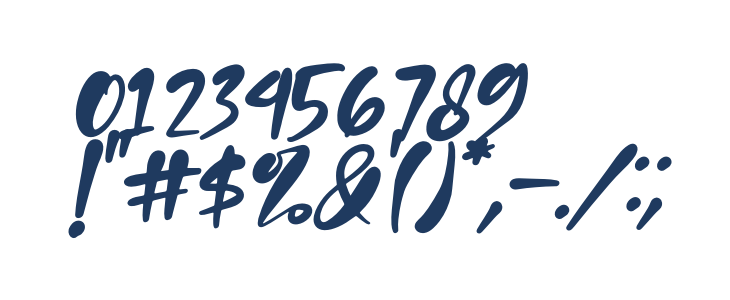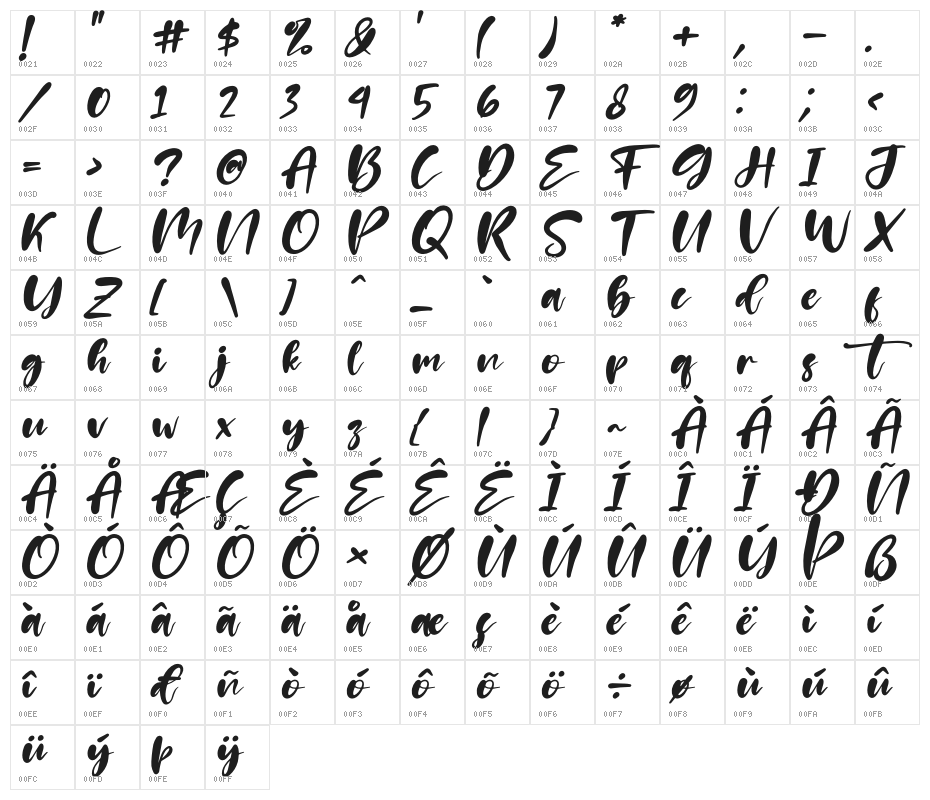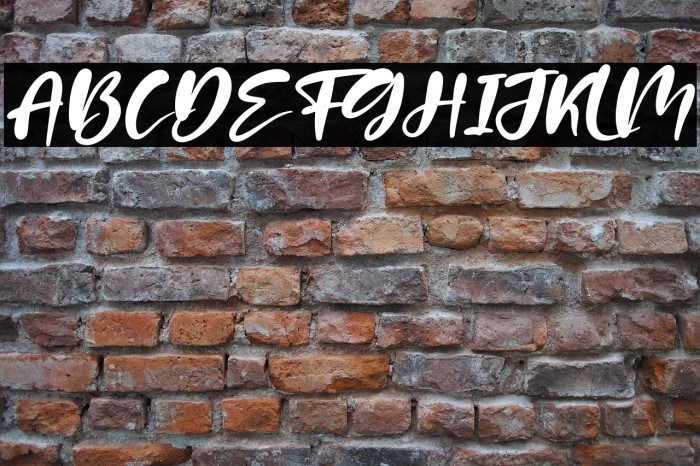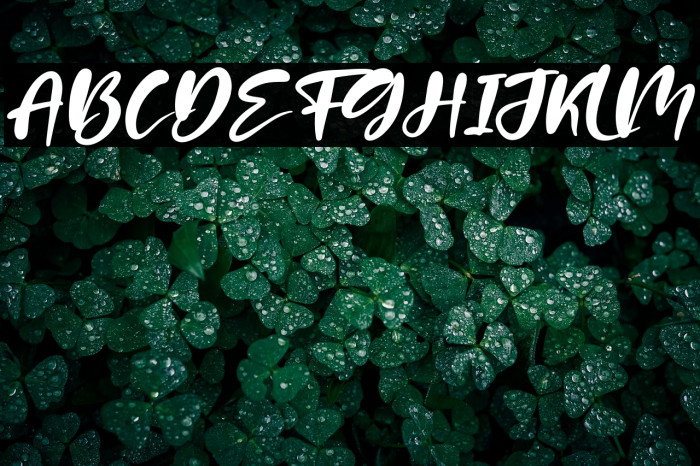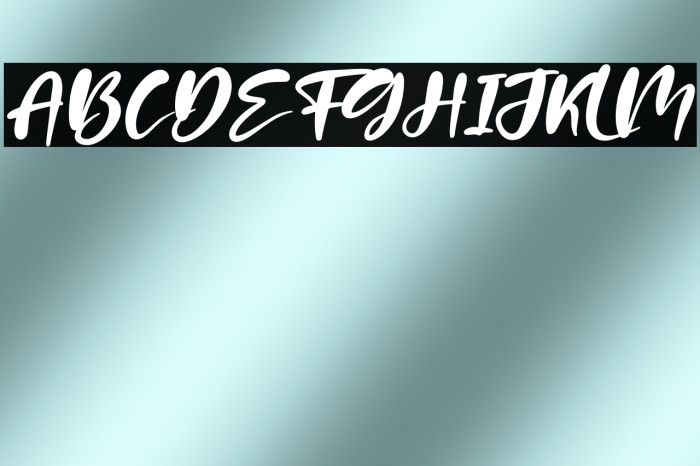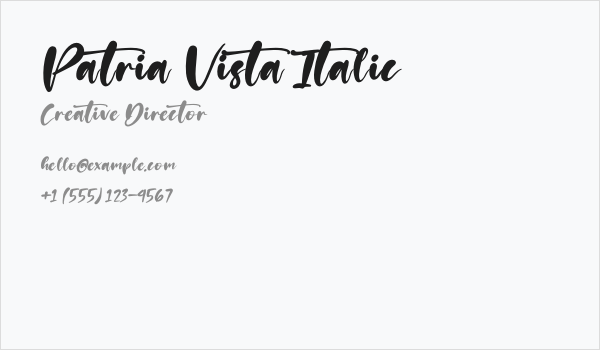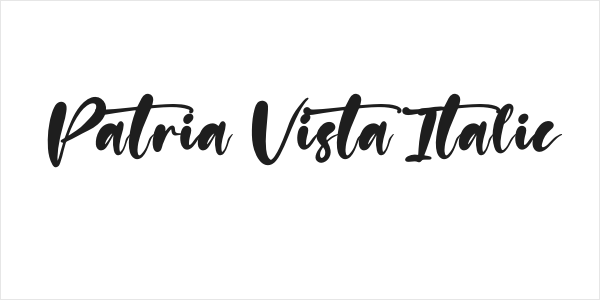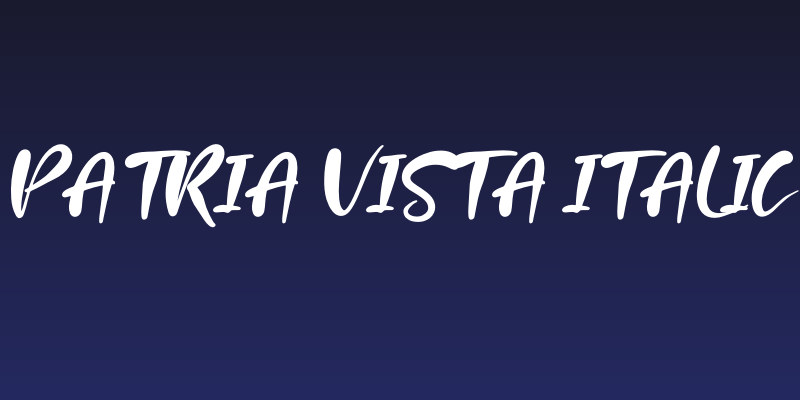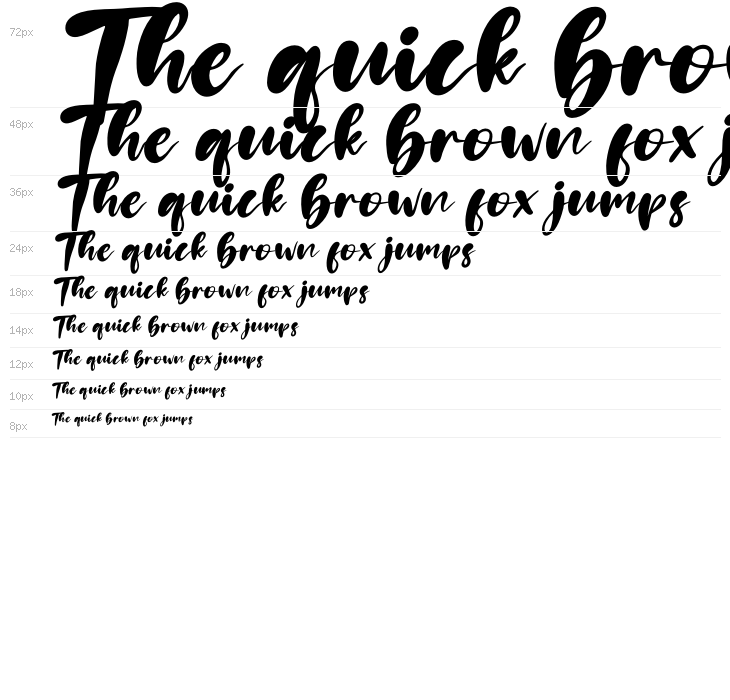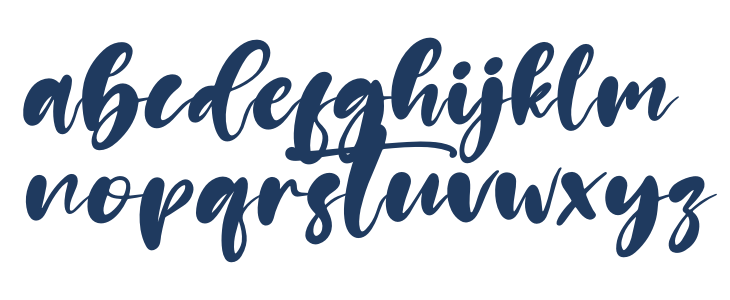
Patria Vista Italic Font
Patria Vista Italic Description
This font features a dynamic and expressive style, characterized by its fluid, cursive script. The letters are bold and slightly slanted, giving an energetic and lively appearance. The strokes vary in thickness, adding a sense of movement and flair. The uppercase letters are elegant and sweeping, while the lowercase letters maintain a consistent flow. Numbers and special characters are designed with the same bold and cursive flair, ensuring a cohesive look across all elements. This font is perfect for projects that require a touch of elegance and personality.